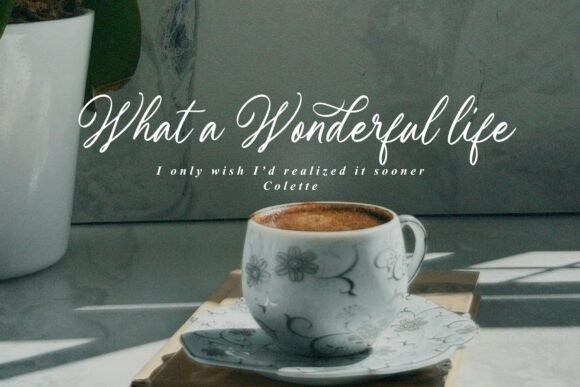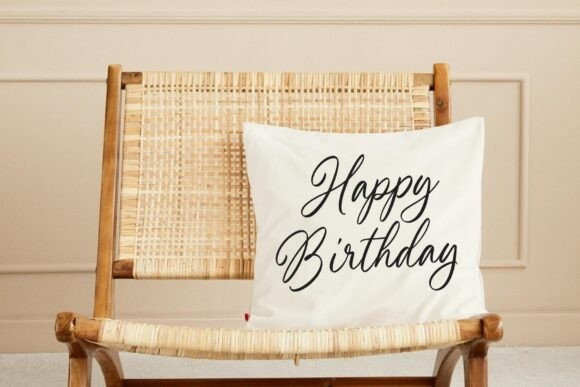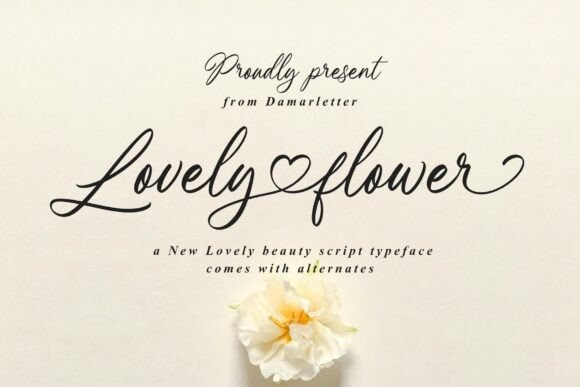
Lovely Flower Font
Lovely Flower Font is a stunning script typeface that captures the essence of lovely beauty, perfect for adding a touch of elegance and sophistication to your designs.
With its lush, flowing lines and delicate flourishes, Lovely Flower is the perfect lovely beauty script typeface for weddings, invitations, and other romantic occasions.